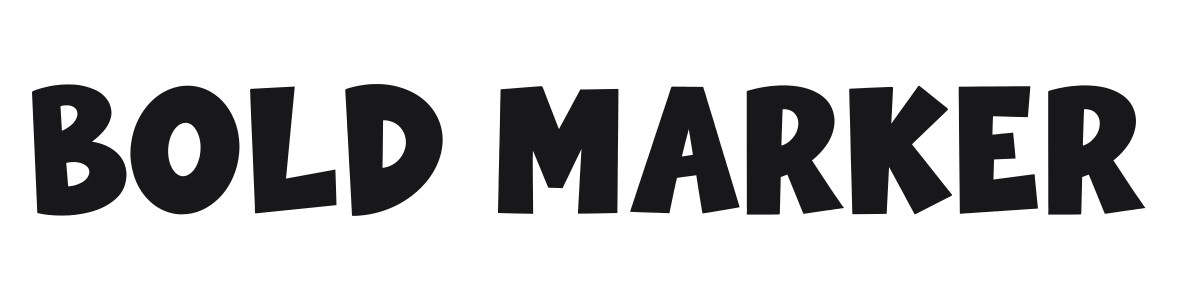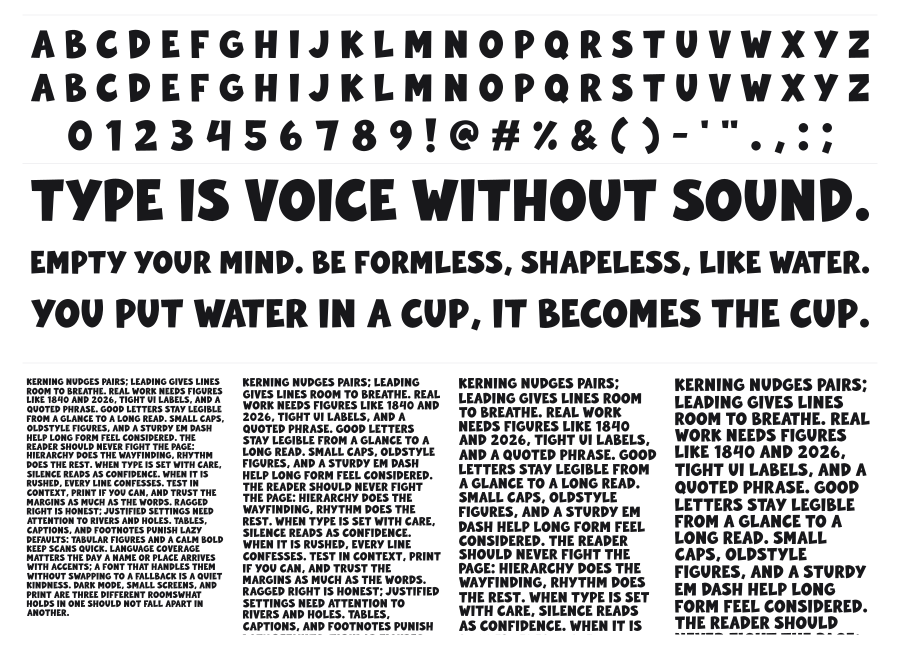
Bold Marker
Bold Marker is a heavy hand-drawn sans-serif that mimics the look of thick felt-tip marker lettering. The slightly irregular strokes and rounded terminals give it a casual, high-energy personality that feels at home on posters, packaging, and comic-style headlines. It carries genuine weight without losing that spontaneous, hand-made quality.